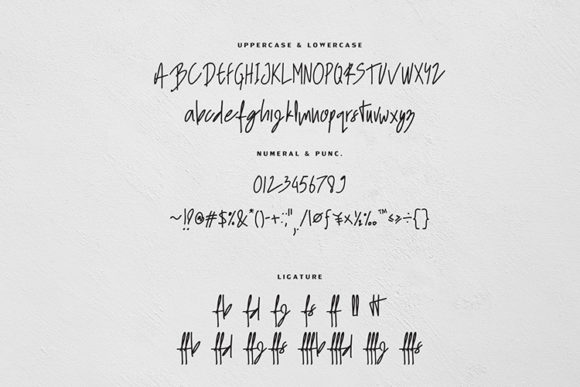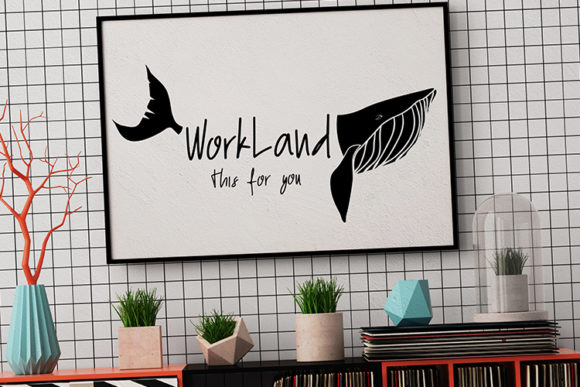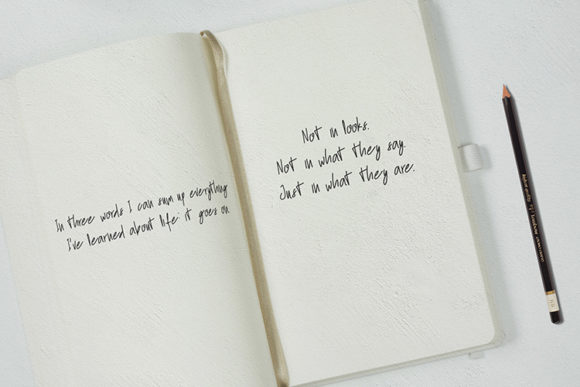
Introduction to Blittar Rain Font
Blittar Rain is a modern and smooth signature font.
Get inspired by its casual coolness .
Key Features of Blittar Rain Font
Why Choose Blittar Rain Font?